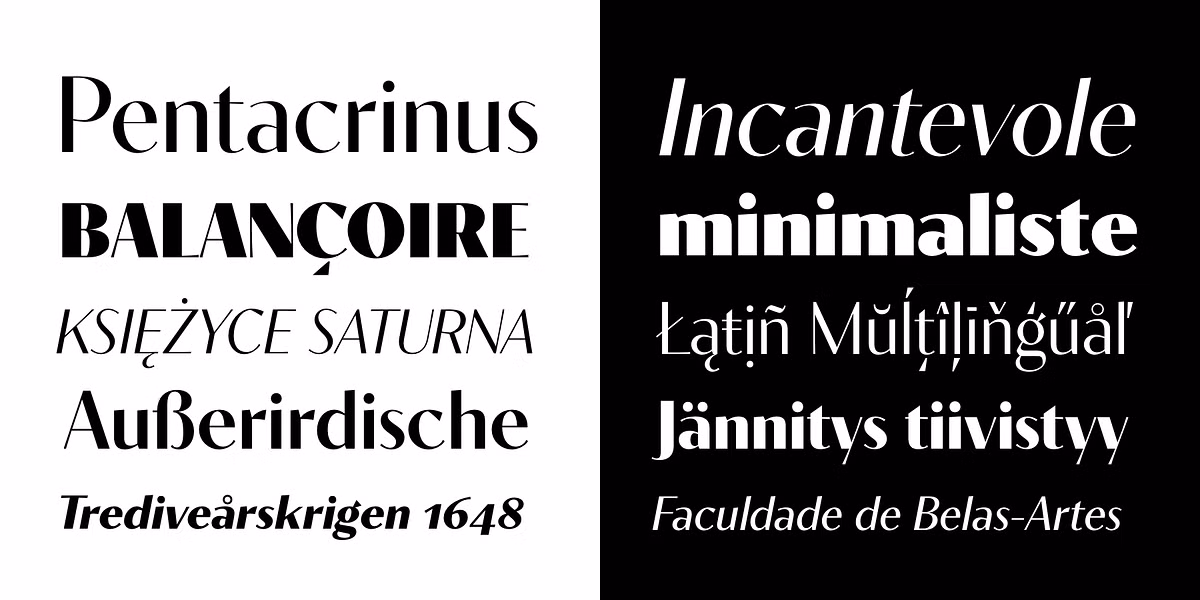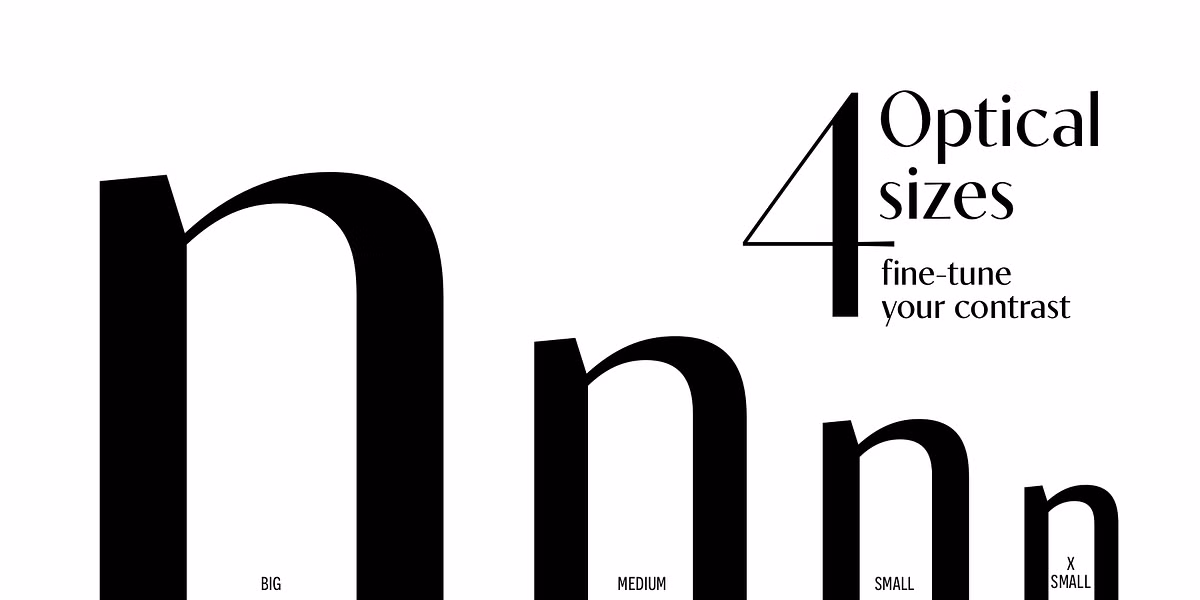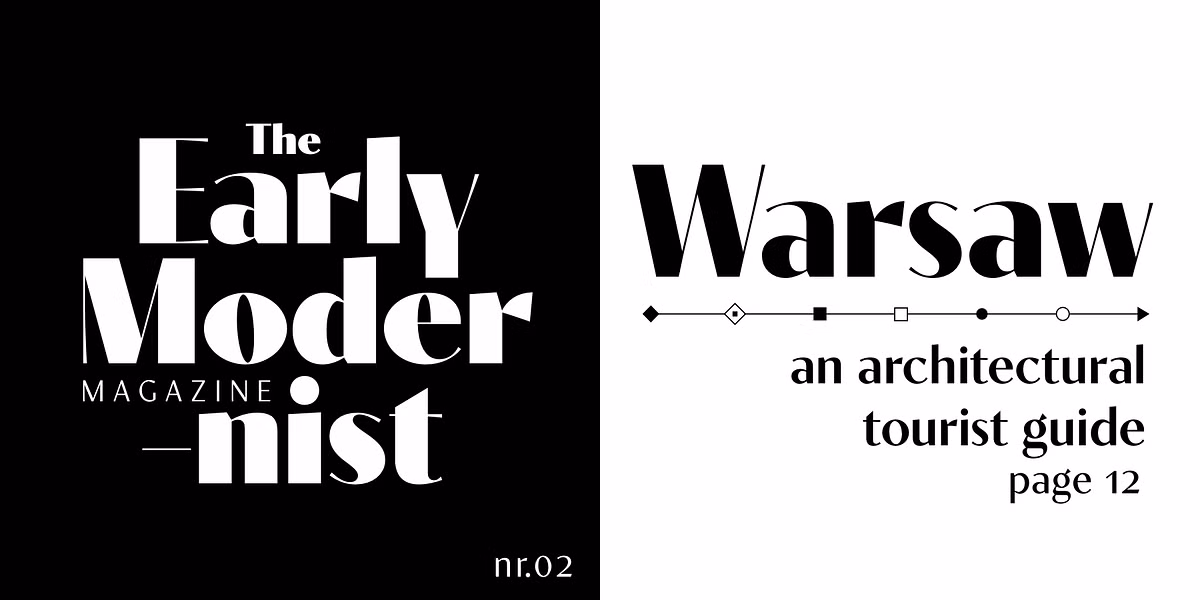
Contralto
Contralto: Elegant High Contrast Sans-Serif Font Family
Contralto is a special kind of font that combines classic style with a modern look. It has a unique way of mixing soft, curved shapes with sharp, geometric lines, which makes it very versatile. This means it can be used for many different design projects, from creating a fancy brand image to designing a sleek magazine. Overall, Contralto is a great choice for anyone who wants to make a statement with their design. Its elegant and contemporary feel makes it perfect for a wide range of uses, and it’s sure to stand out in a crowded field. With its blend of soft and sharp elements, Contralto is a font that can add a touch of sophistication to any project.
An elegant display of the Contralto font style
Contralto font style showcased in design
The design of Contralto is characterized by a striking high contrast that enhances its visual appeal. This font family embodies a sophisticated balance between softness and precision, which is achieved through its humanist forms paired with geometric elements. The result is a typeface that is both visually engaging and easily readable, catering to the needs of modern design aesthetics.
Contralto gives designers a range of options with its five different weights, from light to bold, so they can pick the one that best fits their project. What’s great is that each weight still has the font’s elegant feel, but also makes a strong impact in any design. And with the added option of italics, designers have even more freedom to create different moods and tones with their typography, making their work really stand out. This means you can use Contralto to convey a wide range of emotions and ideas, from subtle and sophisticated to bold and eye-catching, all while maintaining a consistent and beautiful look.
Character Sets and OpenType Features
What makes Contralto special is that it has a lot of characters to choose from, which is great for many languages and design needs. This means you can make complex and interesting designs with text without running out of the characters you need. You can use it to create beautiful and detailed typography, and it’s really helpful for designers who want to make their text look unique and special. With Contralto, you don’t have to worry about not having the right characters, so you can focus on making your design look great.
OpenType features of the Contralto font
Advanced OpenType features enhance design flexibility
Moreover, Contralto is equipped with advanced OpenType features that enhance its functionality. These features include ligatures, stylistic alternates, and multiple numeral styles, enabling you to customize your typography further. By leveraging these OpenType capabilities, you can achieve a polished and professional look in your designs.
The Contralto font is really versatile, which makes it perfect for lots of different uses in various fields. Let’s take a look at some of the most common ways this beautiful font family is used:
• Branding: Contralto is perfect for creating a unique image for a company, with a stylish look ideal for logos and brand identities.
• Editorial Design: Whether for magazines, brochures, or online publications, Contralto’s readability and charm make it an excellent choice for editorial layouts.
• Web Design: The versatility of Contralto allows it to be effectively used in web design, providing a clean and contemporary look for websites and digital applications.
• Advertising: Its bold presence can capture attention in advertisements, making it suitable for both print and digital marketing materials.
When pairing fonts, Contralto really stands out because it’s so versatile. Here are some great typefaces that go perfectly with Contralto:
• Serif Fonts: Pairing Contralto with a classic serif font like Garamond or Baskerville can create a stunning contrast, enhancing elegance while maintaining readability.
• Sans-Serif Fonts: For a consistent appearance, try combining Contralto with another sans-serif font, such as Montserrat or Lato, ensuring a visually cohesive design.
• Display Fonts: Using Contralto with a special display font can really make your creative projects stand out. Pairing it with a fun, script font can add energy to your design.
Contralto font paired with other typefaces
Contralto font paired with complementary typefaces
Contralto font displayed in various design contexts
Contralto font showcased in different design projects